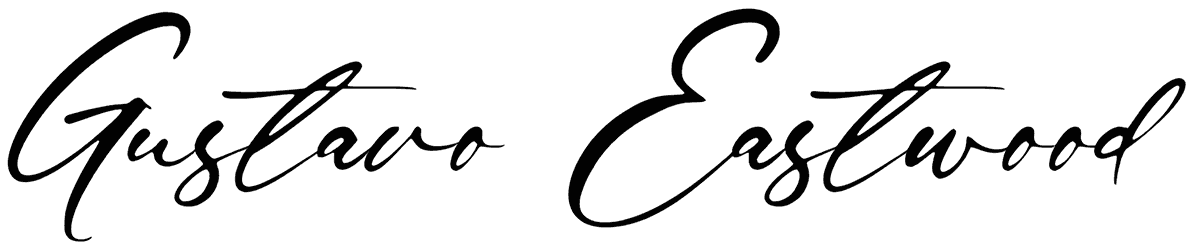
Gustavo Eastwood Font
If you are the leader of a mission that can afford no mistakes, Gustavo Eastwood will come to your rescue. Use this difficult-to-read font to your advantage in developing your next design.
Use this handwritten script font to make a strong statement in any print or digital design, from album covers and movie titles to signatures and video game logos. We have many useful fonts in our library, and they are all free to use if you’re interested.